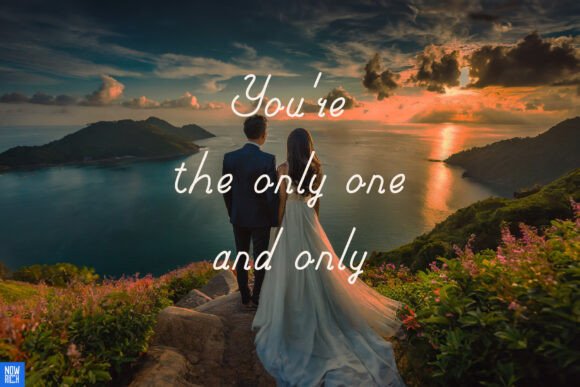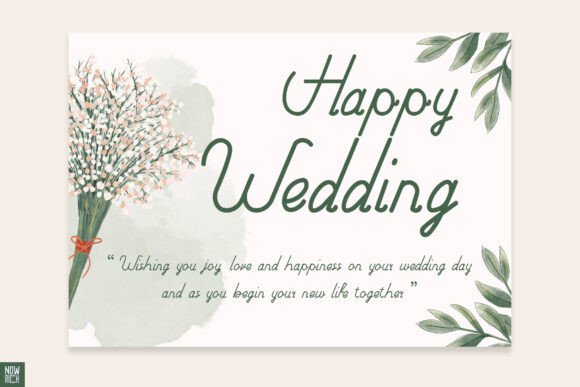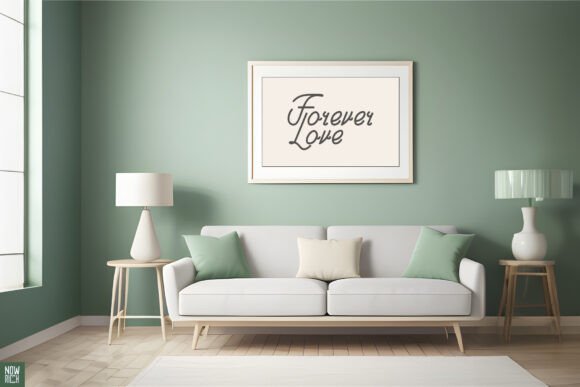
Introduction to Pistia Font
Pistia is a smooth and friendly script typeface that blends classic cursive strokes with modern simplicity.
Its versatile letterforms make it an excellent choice for branding, product packaging, headlines, or any design that needs a personal and polished handwritten look With support for multiple languages and a variety of symbols, Pistia adds elegance without sacrificing readability.
Key Features of Pistia Font